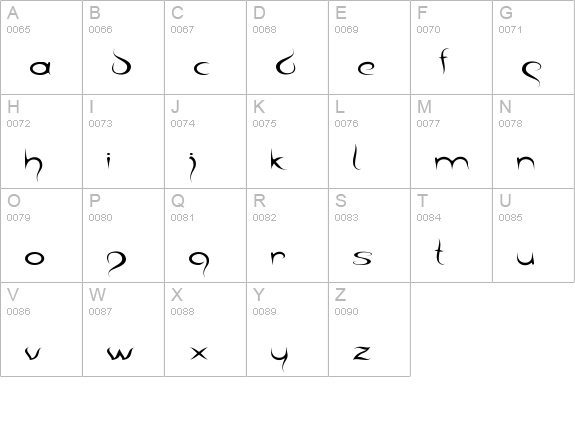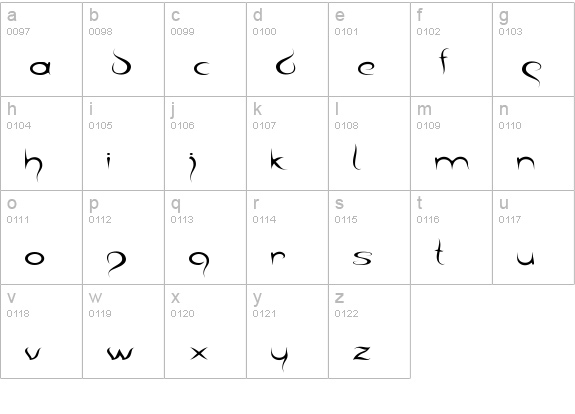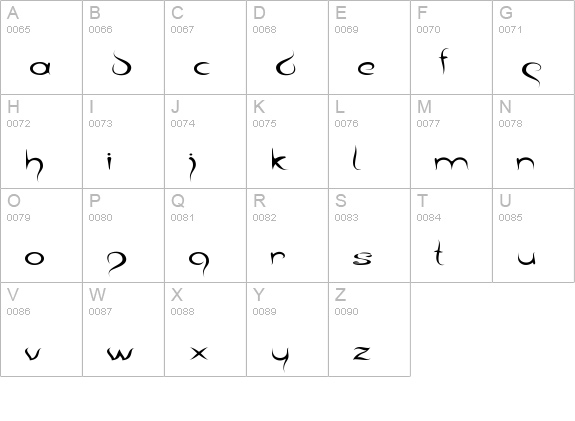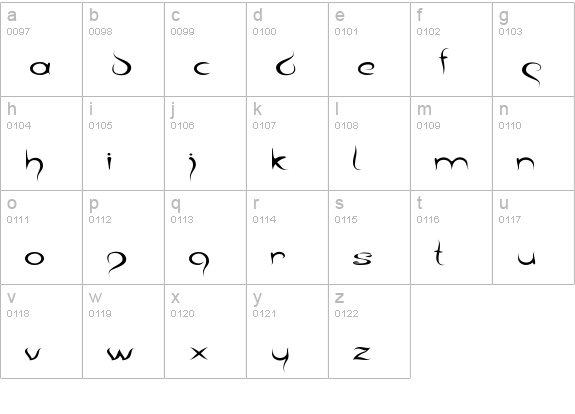
barka Font Details
Introducing Barka Font, a captivating and versatile typeface that is sure to enhance any design project. With its unique and stylish letterforms, Barka Font effortlessly combines modern sophistication with a touch of whimsy. Whether you're designing a logo, creating eye-catching headlines, or crafting beautiful typography for a website, this font is the perfect choice to make your words stand out. Barka Font features a wide range of weights and styles, from a subtle and elegant Thin to a bold and impactful Black, allowing you to customize your design with ease. Its clean and crisp lines ensure readability across different sizes and mediums, making it suitable for both print and digital applications. One of the most exciting aspects of Barka Font is that it is free! That's right, you won't have to spend a dime to access this stunning font. It is freely available to download at FontsMarket.com, a trusted online resource for high-quality fonts. This means that you can elevate your design projects without breaking the bank. With its versatility, elegance, and affordability, Barka Font is a must-have for any designer or creative professional. So why wait? Download this exquisite font today and let your creativity soar to new heights.